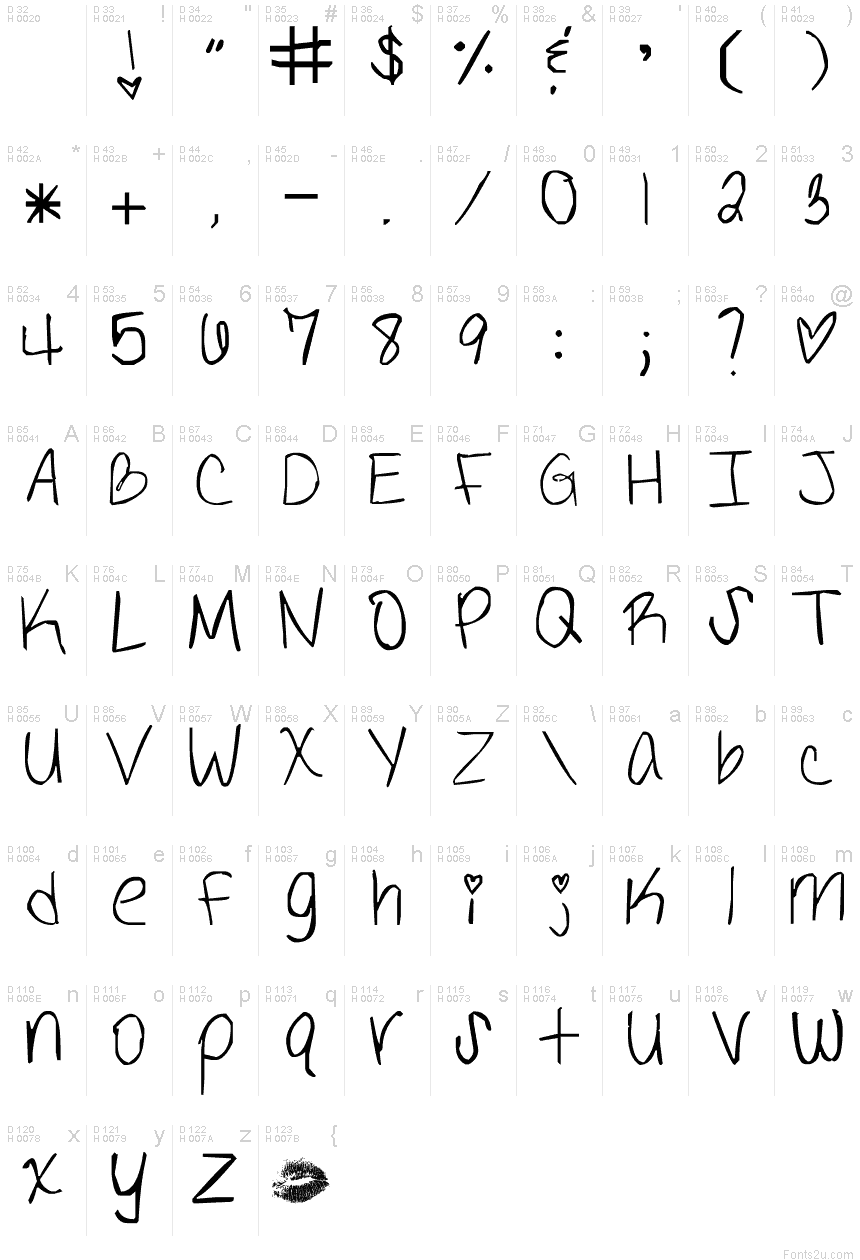
The Definition of Tabulous
This is what my handwriting looks like it. It's totally tabulous! I hope you all enjoy it and please do not steal it or claim you made it! PLEASE DO NOT USE FOR COMMERCIAL USE. PERSONAL USE ONLY! Thank you soooo much! Want to earn some free, extra money? Go here: http://cashcrate.com/1306977 and visit my blog for more information: fabtablovescashcrate.blogspot.com. thank you!(: